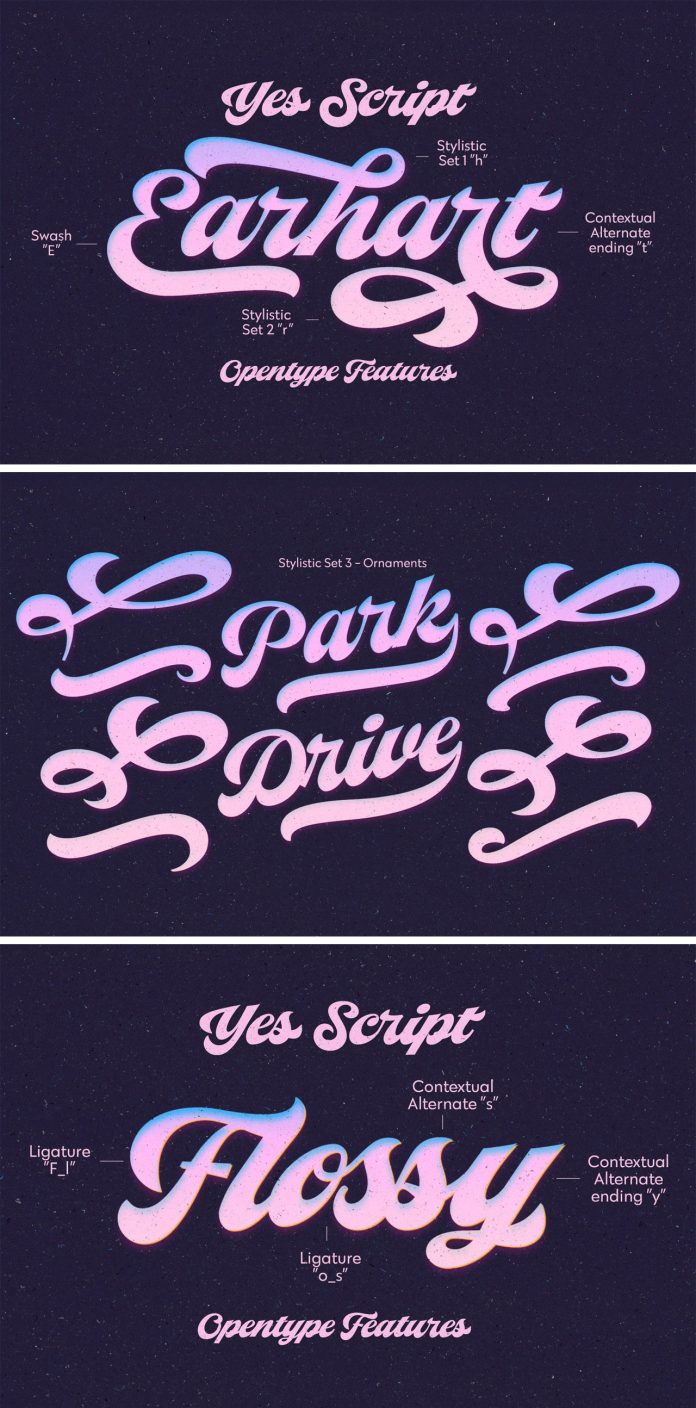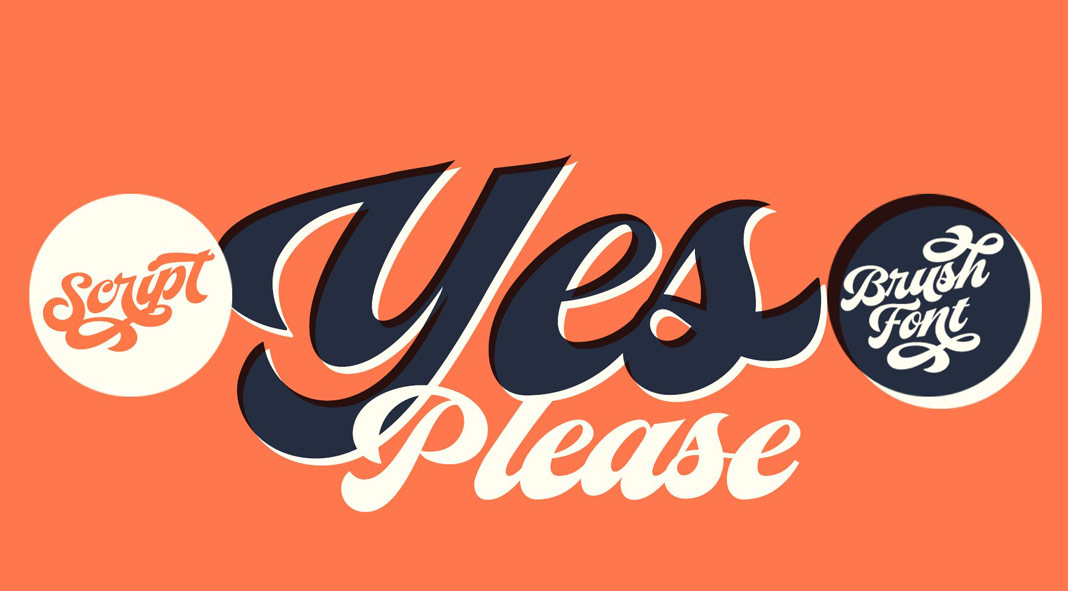
Yes Script, a funky retro script font published by foundry Fenotype.
Say yes to Yes Script, a bold brush script inspired by the lettering designs of the late 1960s and 1970s. The typeface masterfully combines funky vintage typography with contemporary design principles. Yes Script is suitable for a wide range of graphic design projects including branding, packaging, magazines, and everything else from digital to print.
Font designer Emil Bertell has equipped the typeface with contextual alternates as well as standard ligatures that are automatically on to keep the flow of the typeface natural and connections between all letters smooth. Yes Script also comes with swashes, titling alternates, and two packs of stylistic sets. You can access the alternates by using any OpenType savvy software or browse through the Character Palette for even more alternates. The stylistic set number three is packed with 24 swooshes and ornaments. The typeface is fully PUA encoded. This way, you can access the alternates in any software. For further information on all features, just click on one of the following links.
Yes Script, a funky retro script font by Fenotype.